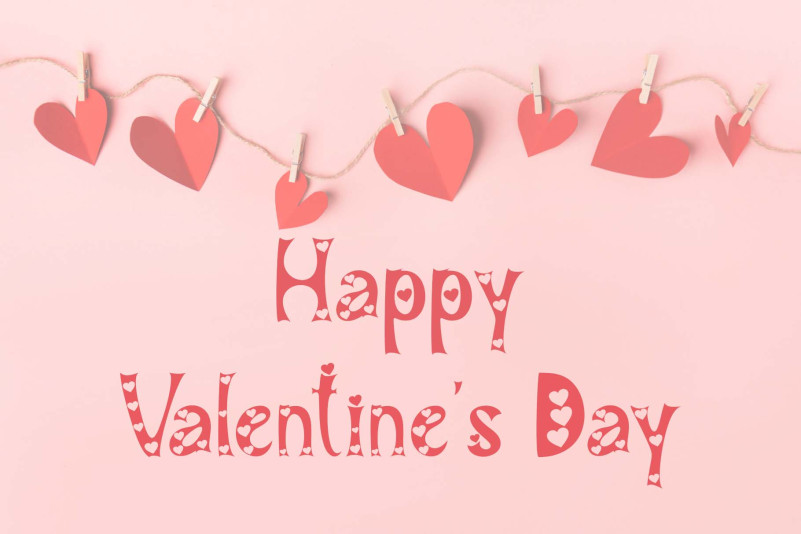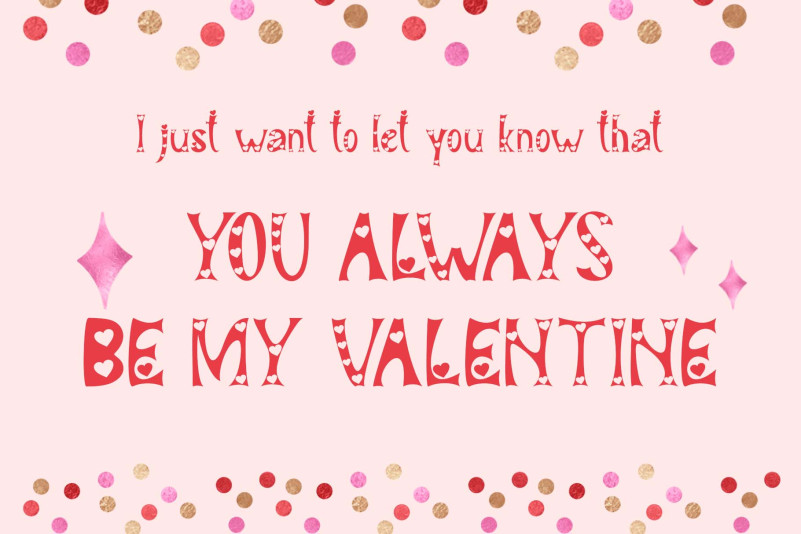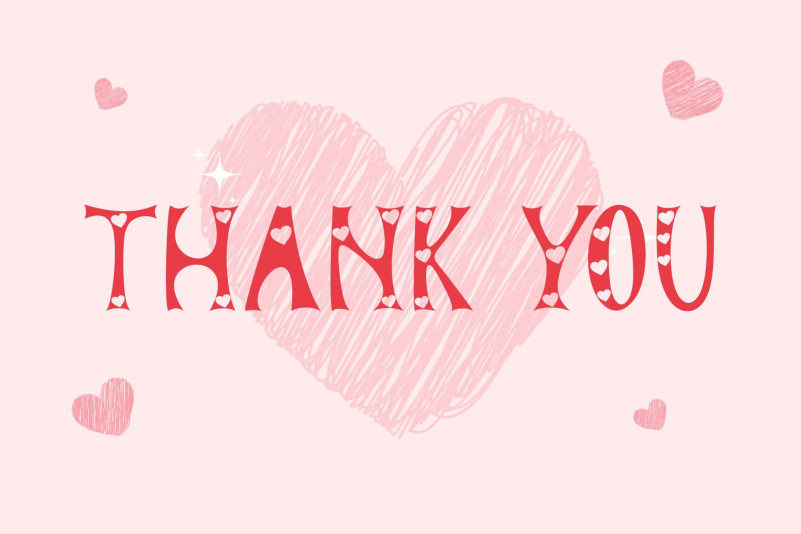
Couple Valentine Font
Couple Valentine Display Font is a very unique and beautiful display font. This font has a heart shape on each letter. It is suitable for romantic moments, Valentine’s Day, weddings, and more. This font is equipped with uppercase, lowercase, numerals, punctuations, and multilingual support.